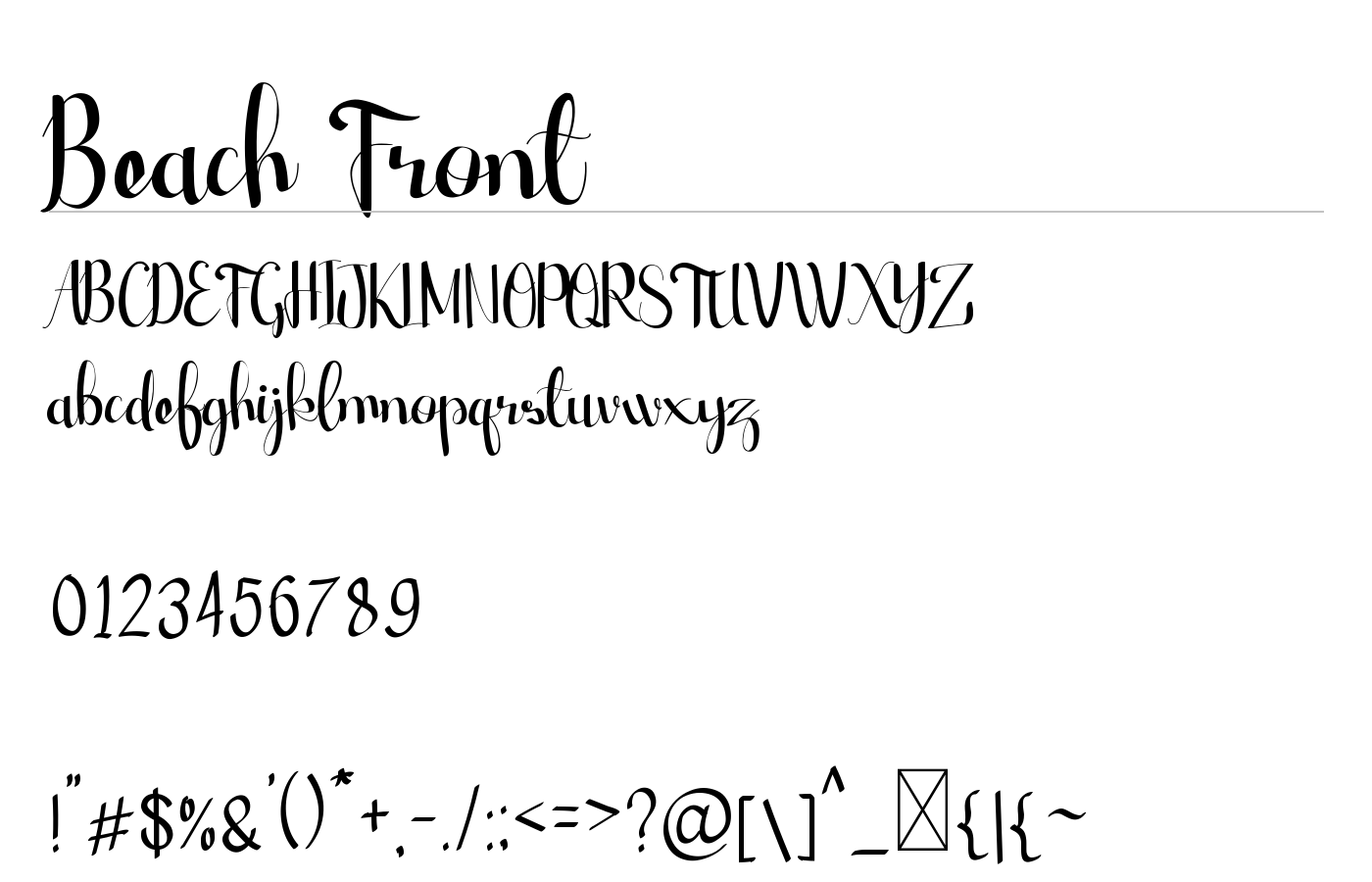
Beach Front is a playful and elegant script font with a light, handwritten feel, featuring tall, narrow letterforms and delicate, flowing strokes that give it a breezy and casual vibe. Its whimsical style, with unique flourishes and smooth curves, makes it perfect for brands and projects seeking a fresh, friendly, and stylish look, such as beachwear, invitations, or lifestyle logos. This font works beautifully in display settings, adding a touch of charm and personality to headlines and packaging where a relaxed yet refined impression is desired.
Beach Front Font